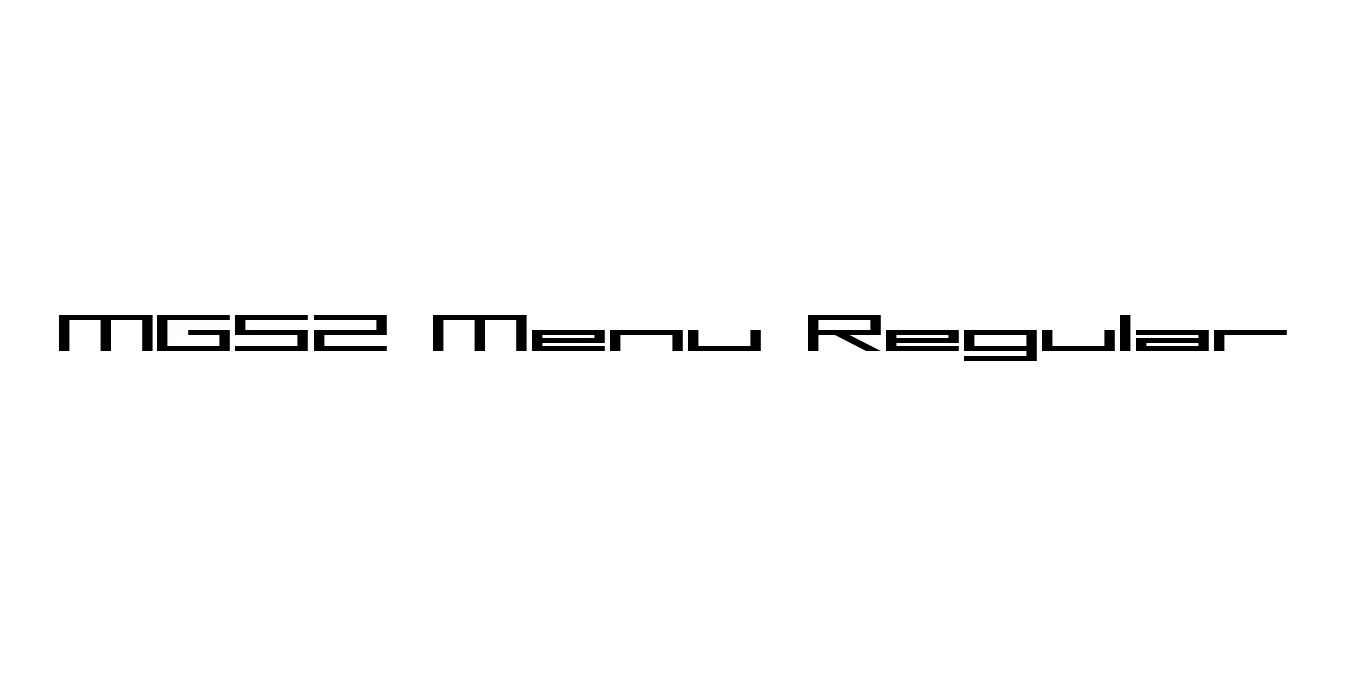
MGS2 Menu Regular
Designed by Konami Digital Entertainment / Fan-made Recreation
The MGS2 Menu Regular font is a specialized typeface inspired by the user interface of the critically acclaimed 2001 video game, Metal Gear Solid 2: Sons of Liberty. The font captures the sleek, high-tech aesthetic of the "Sons of Liberty" era, characterized by clean lines and a modern sans-serif structure that was originally designed to remain legible on the lower resolutions of CRT monitors. Its distinctive look has become synonymous with the tactical espionage genre and the futuristic narrative of the Metal Gear series.
In the decades since the game's release, this font has been meticulously recreated by fans and digital typographers to preserve the game's unique visual identity. It is widely used in gaming UI mockups, fan projects, and tech-themed graphic design. Because of its balance between a professional corporate look and a digital military feel, it serves as an excellent tool for designers looking to evoke a sense of advanced technology, surveillance, or digital precision.
MGS2 Menu Regular Best Uses
Perfect for creating authentic HUDs and menu systems for video game projects.
Excellent for Twitch or YouTube overlays that require a tactical or cyber aesthetic.
Ideal for headers on tech blogs, hardware review sites, or gaming portals.
Great for posters, stickers, and apparel inspired by stealth and espionage themes.
Useful for designing futuristic digital control panels and interface prototypes.